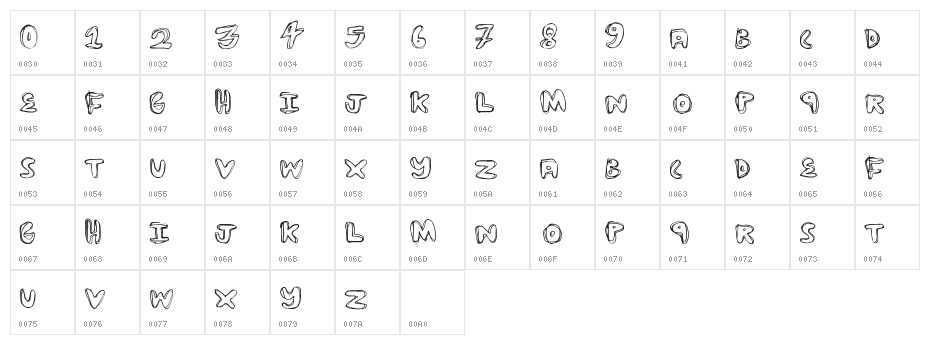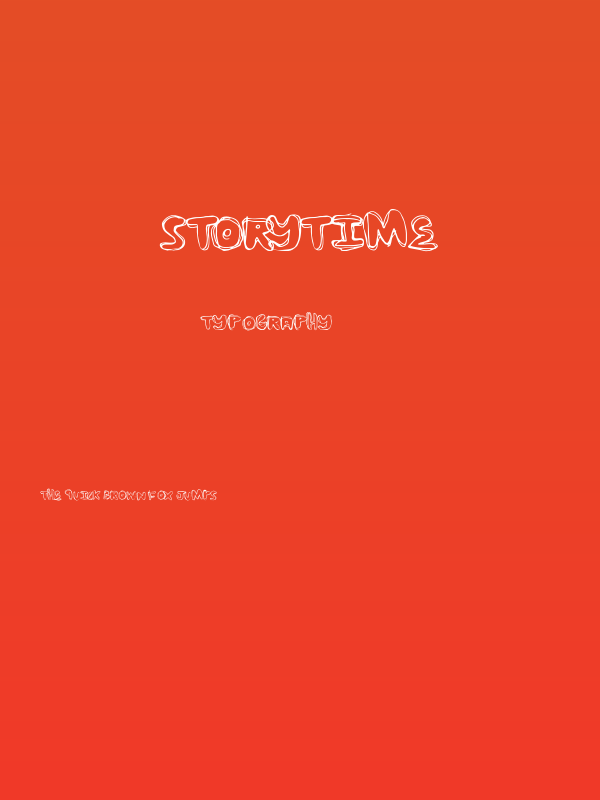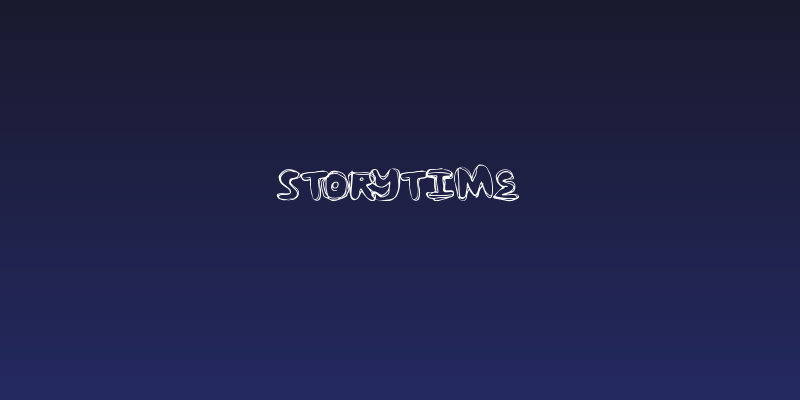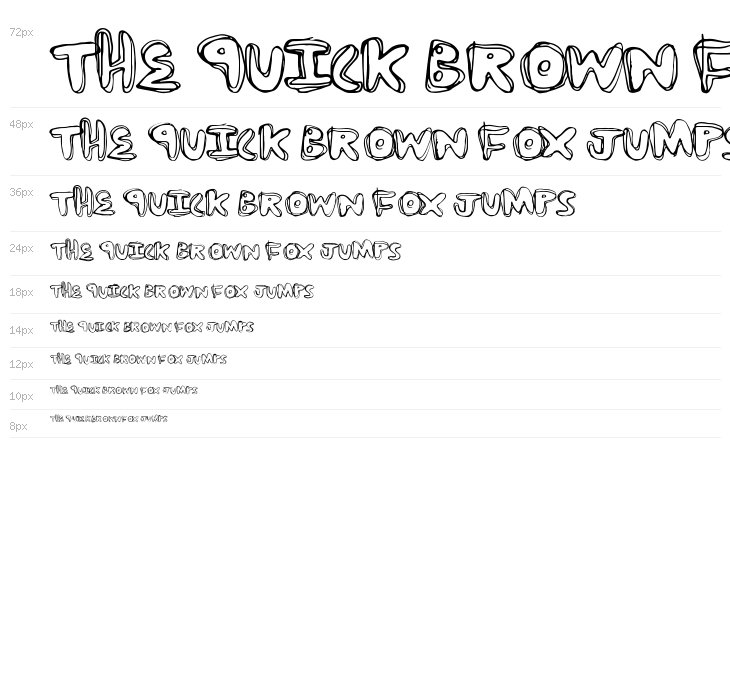
StoryTime Font
StoryTime Description
This playful and whimsical font features bold, rounded characters with a hand-drawn appearance. Each letter is outlined with a thick black stroke, giving it a cartoonish and dynamic feel. The characters are slightly irregular, adding to the casual and fun aesthetic. The font includes both uppercase and lowercase letters, numbers, and a selection of special characters. Its unique style makes it stand out, perfect for projects that require a touch of creativity and humor. The overall look is informal and energetic, making it suitable for children's books, comic strips, or playful branding.
| Overall Style | Playful, Whimsical, Cartoonish |
| Proposed Projects | Ideal for children's books, comic strips, playful branding, and creative posters. |